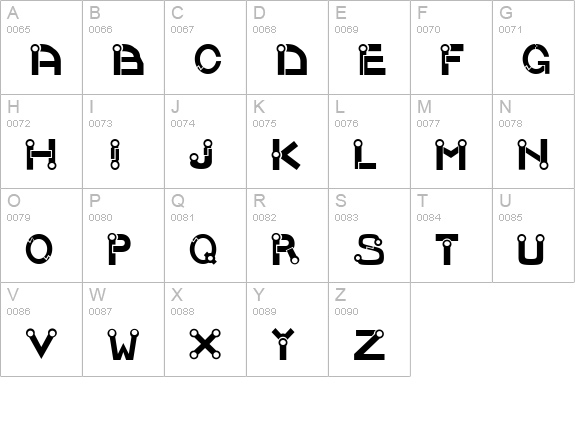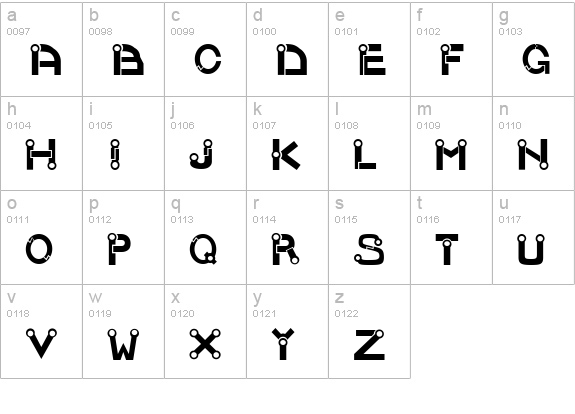
JOINT E: Font Details
Introducing JOINT E, a stunning font that seamlessly combines modern sophistication with a touch of edgy rebellion. This versatile typeface is perfect for capturing attention and making a bold statement in any design project. JOINT E boasts clean lines and sleek curves, creating a harmonious balance between elegance and contemporary flair. Its unique character set is carefully crafted to exude a sense of confidence and individuality, making it an ideal choice for branding, logo design, advertising, and more. One of the most remarkable aspects of JOINT E is that it is freely available to download at FontsMarket.com. This means that designers and creatives of all backgrounds can access this powerful font without any cost constraints. With JOINT E, there are no limitations to your creative vision. Whether you're working on a print campaign, website design, or any other visual project, JOINT E will elevate your work to new heights. Its versatility allows it to seamlessly adapt to various styles and themes, ensuring that your message is conveyed with utmost impact. With its wide range of weights and styles, JOINT E offers endless possibilities for customization. From bold headlines to elegant body text, this font provides the flexibility to bring your ideas to life with precision and finesse. In addition to its stunning visual appeal, JOINT E also ensures optimal legibility across different mediums and devices. Its carefully crafted letterforms guarantee that your message will be communicated clearly and effectively, no matter the context. So, if you're looking for a font that combines contemporary charm with a rebellious edge, look no further than JOINT E. Download it freely at FontsMarket.com and unlock a world of creative possibilities. Elevate your designs and captivate your audience with the timeless allure of JOINT E.